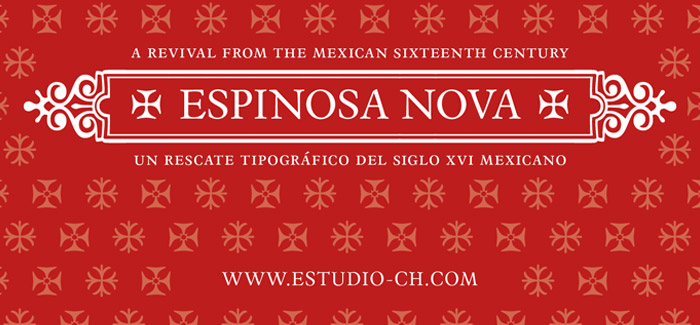
Espinosa Nova free font
Espinosa Nova free font feels very comfortable in books, but it can be used everywhere a touch of classic & elegance is required. Its a revival based on the types used by Antonio de Espinosa, the most important Mexican printer of the sixteenth century and very probably the first punchcutter anywhere in the American continent (1551).
In 2010, its main fonts were awarded two certificates of excellence: one by TDC2 (Type Directors Club Typeface Design Competition), one by Tipos Latinos (Biennial of Latin American Typography).
According to Robert Bringhurst, it is “an unusually intelligent family of type, reaching back to one of the most exciting moments in typographic history and reaching forward to the typographic future”.
All of the fonts intended for setting text include small caps, five sets of figures (oldstyle and lining, both proportional and tabular, plus tabular small caps), many f and long s ligatures, and capital sharp S (U+1E9E).